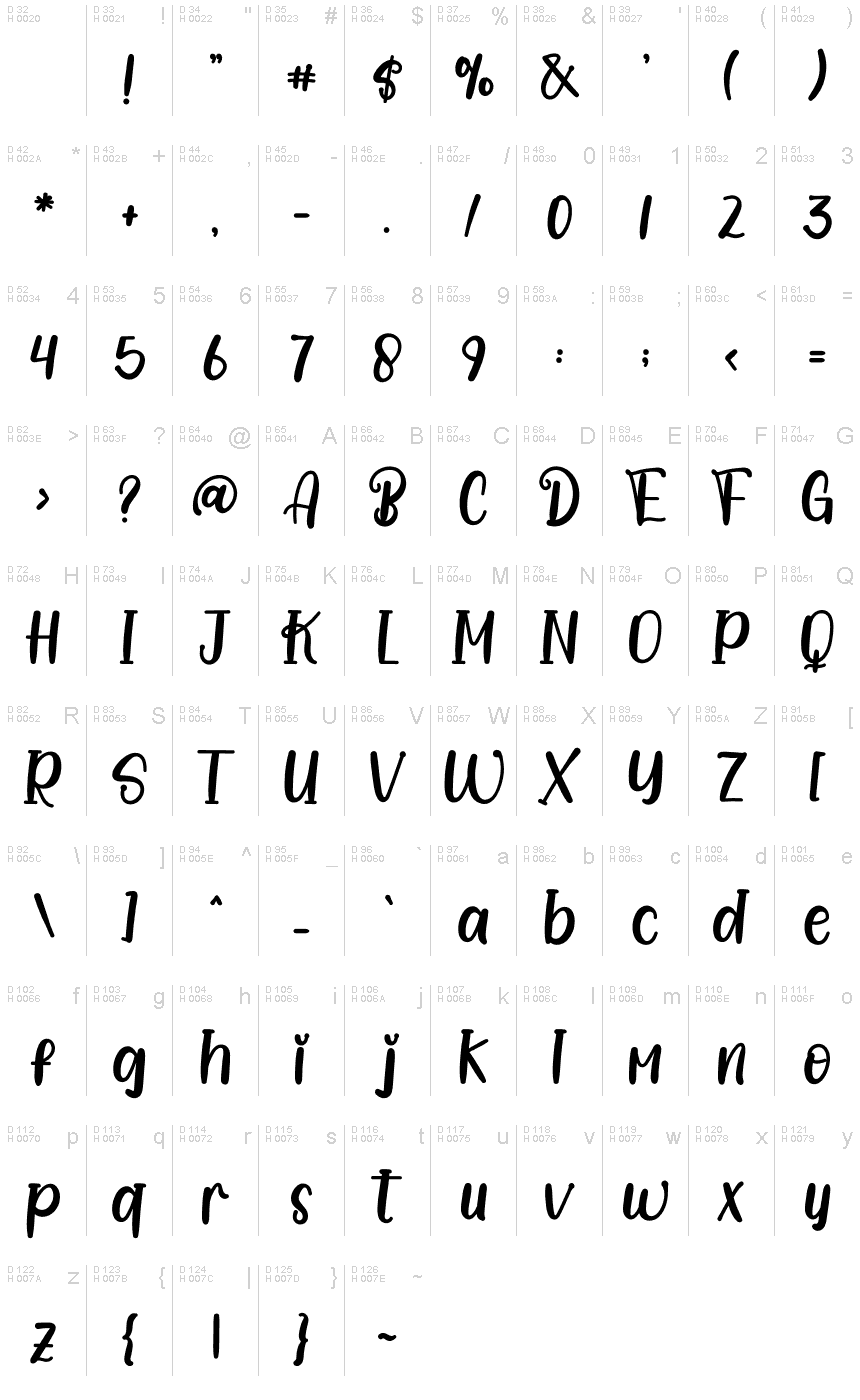
Minimalist Happiness
Introducing Minimalist Happiness, a creative handwritten font designed by FreshtypeINK. Perfect for projects that require an expressive and unique touch, this condensed font will bring personality and character to your designs. Whether you're looking for a font for your logo, website banner or stationery designs, Minimalist Happiness is the perfect choice. Its distinct style is sure to make your project stand out from the crowd.